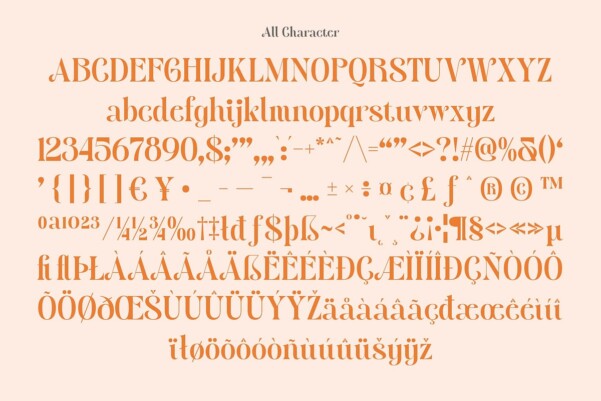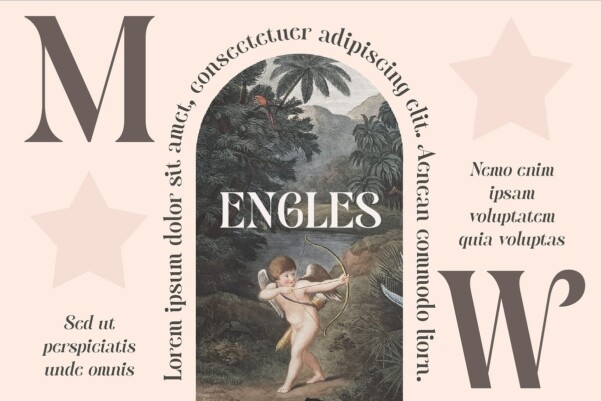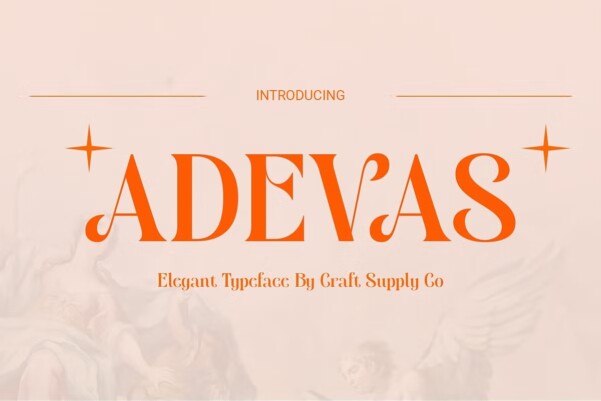
Adevas Font
Designer: Craft Supply Co.
Adevas Font: Elevate Your Designs with Elegant High Contrast Serif.  High Contrast Serif Design Adevas boasts a high contrast serif design that captivates with its striking elegance. The contrasting strokes create a sense of sophistication and refinement.
Elegant Vibes With its graceful curves and refined details, This font exudes elegant vibes that elevate any design. It brings a touch of class and sophistication to display projects.
Perfect for Display Purposes Designed with display in mind, This font is perfectly suited for headlines, titles, and other prominent elements. Its high contrast and elegant demeanor demand attention and make a bold statement.
Versatile Application Despite its focus on display, This font is versatile enough to be used in various design projects. From branding and packaging to editorial layouts, it adds a touch of elegance and professionalism.
Where Elegance Meets Contrast This font combines the timeless elegance of serif typography with high contrast strokes, resulting in a font that commands attention and exudes sophistication. Whether used for headlines or branding, Adevas elevates designs with its refined elegance and versatility.